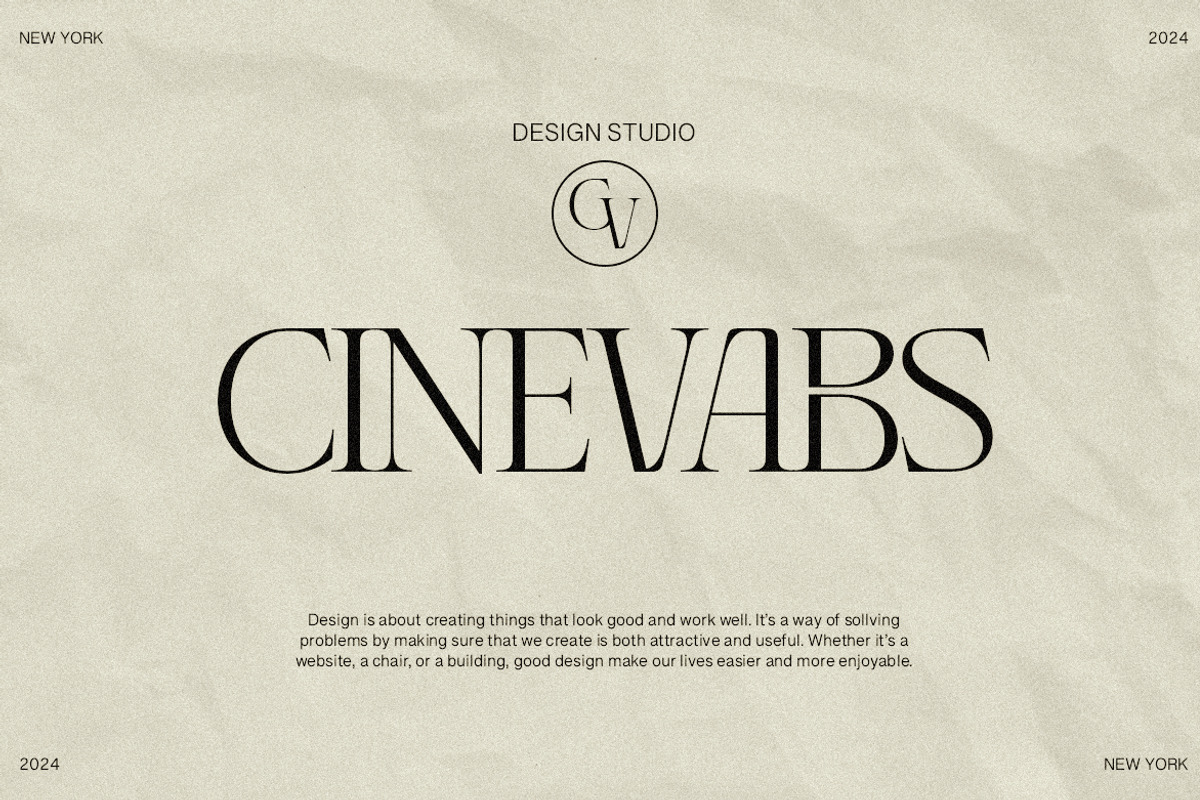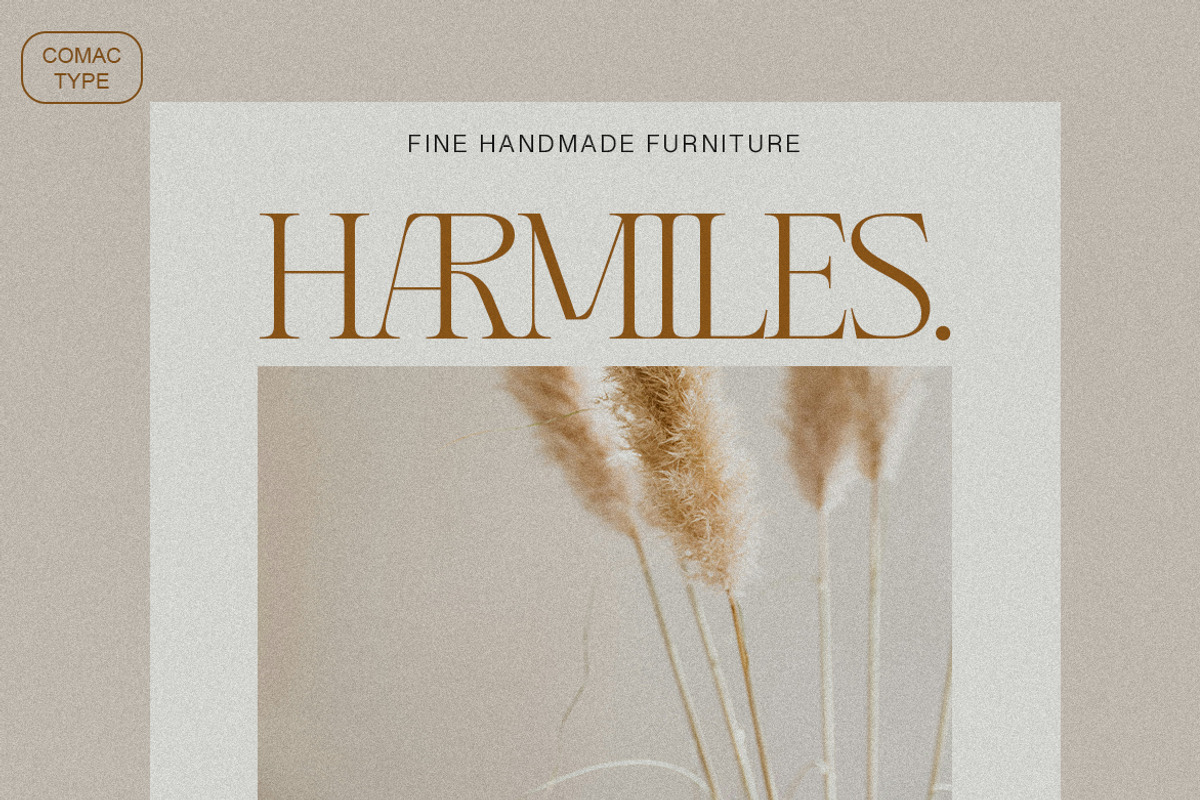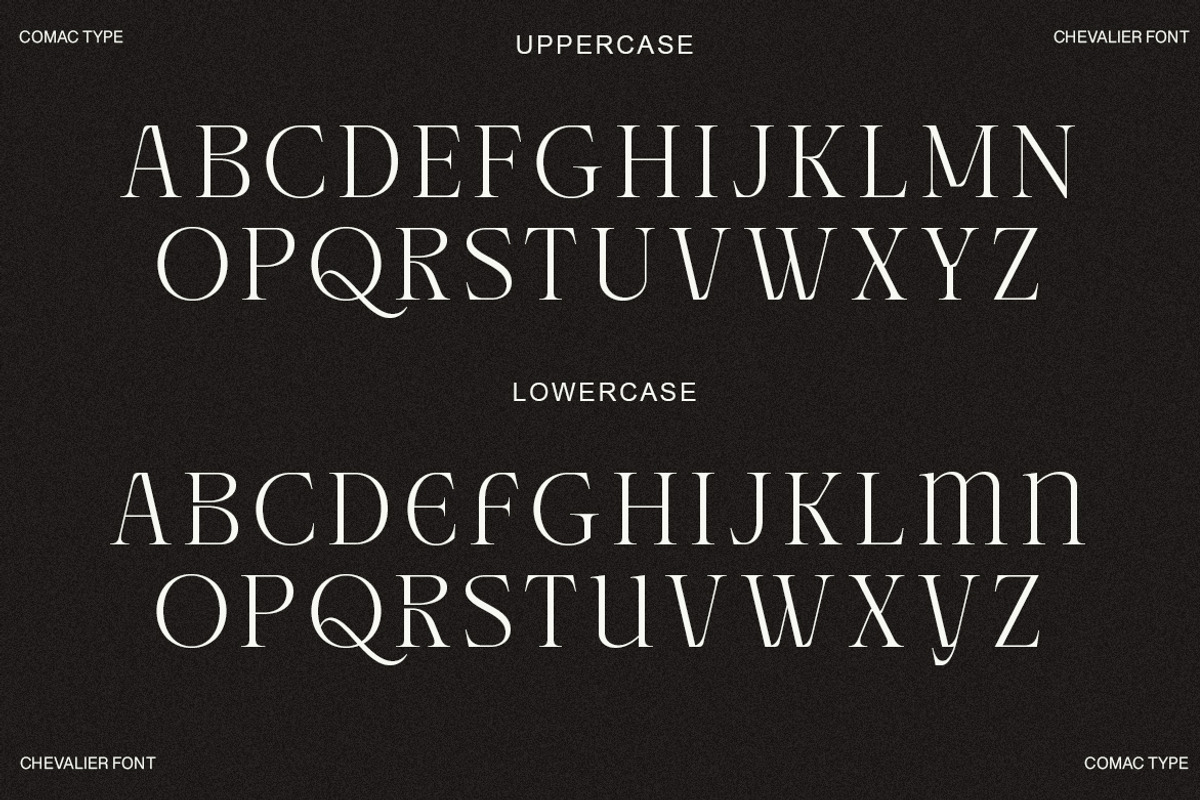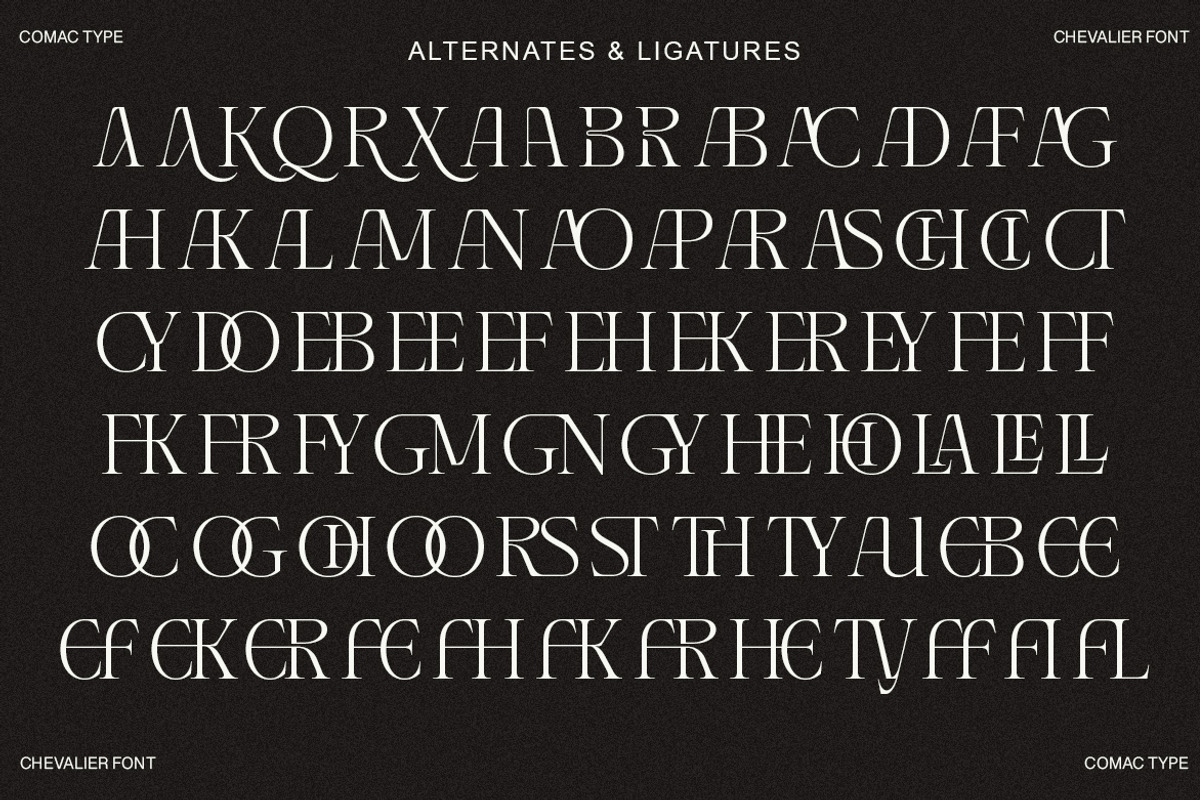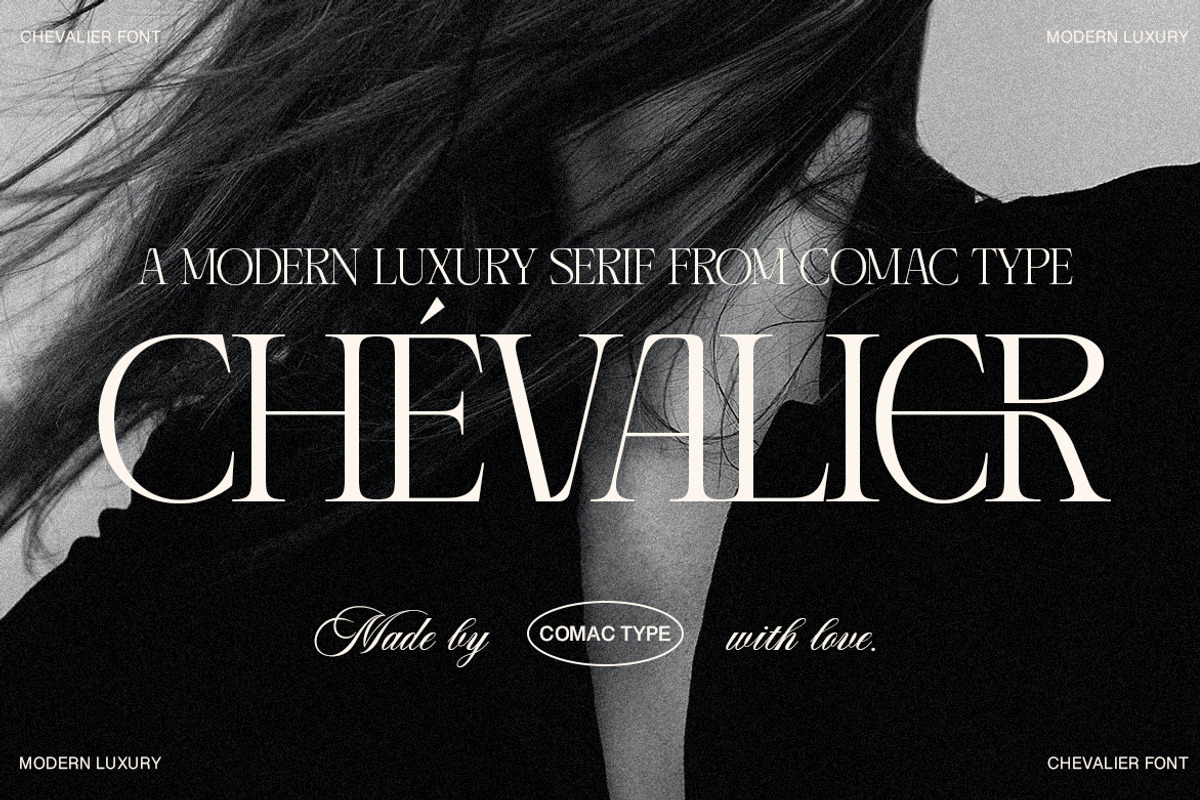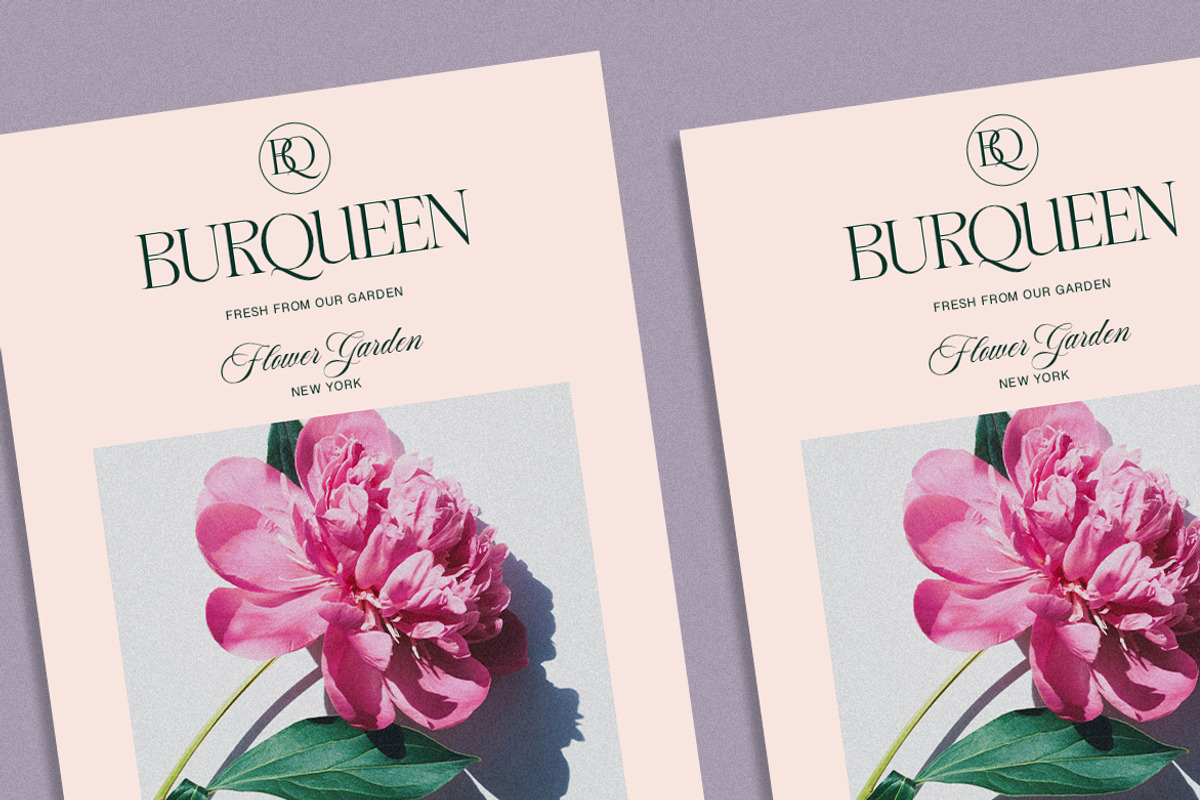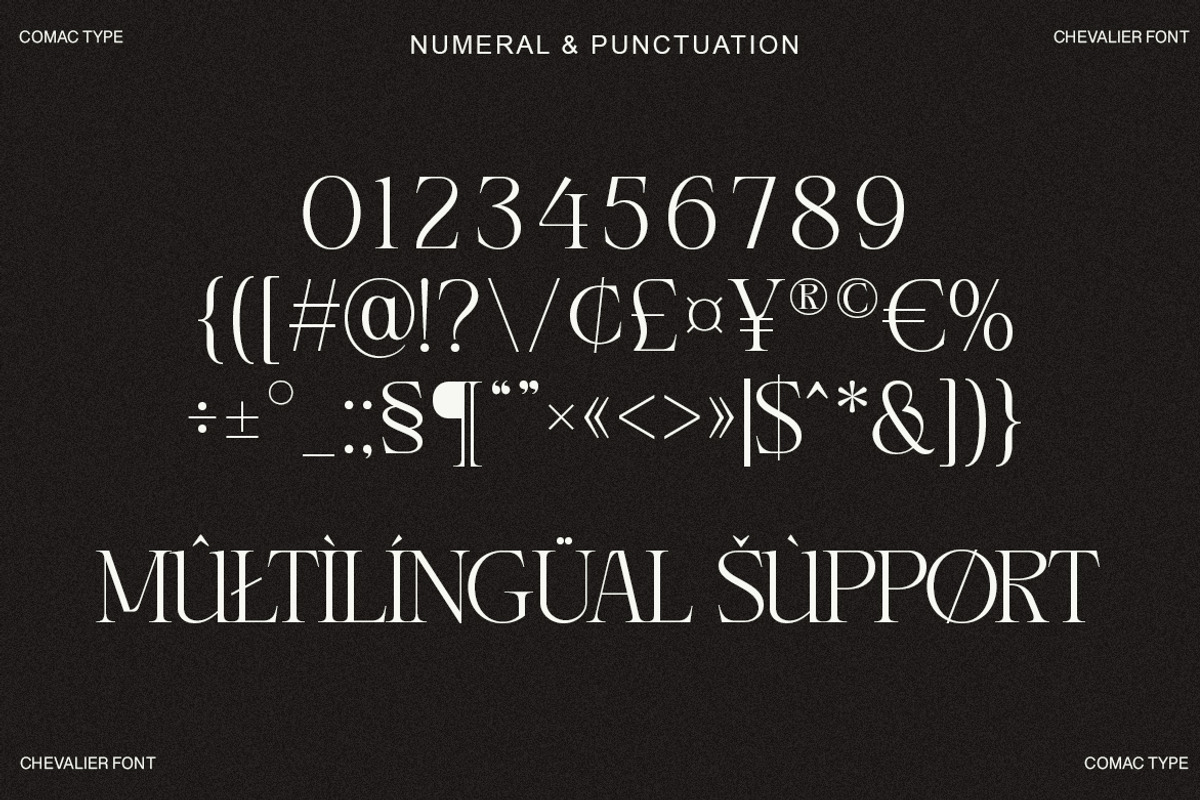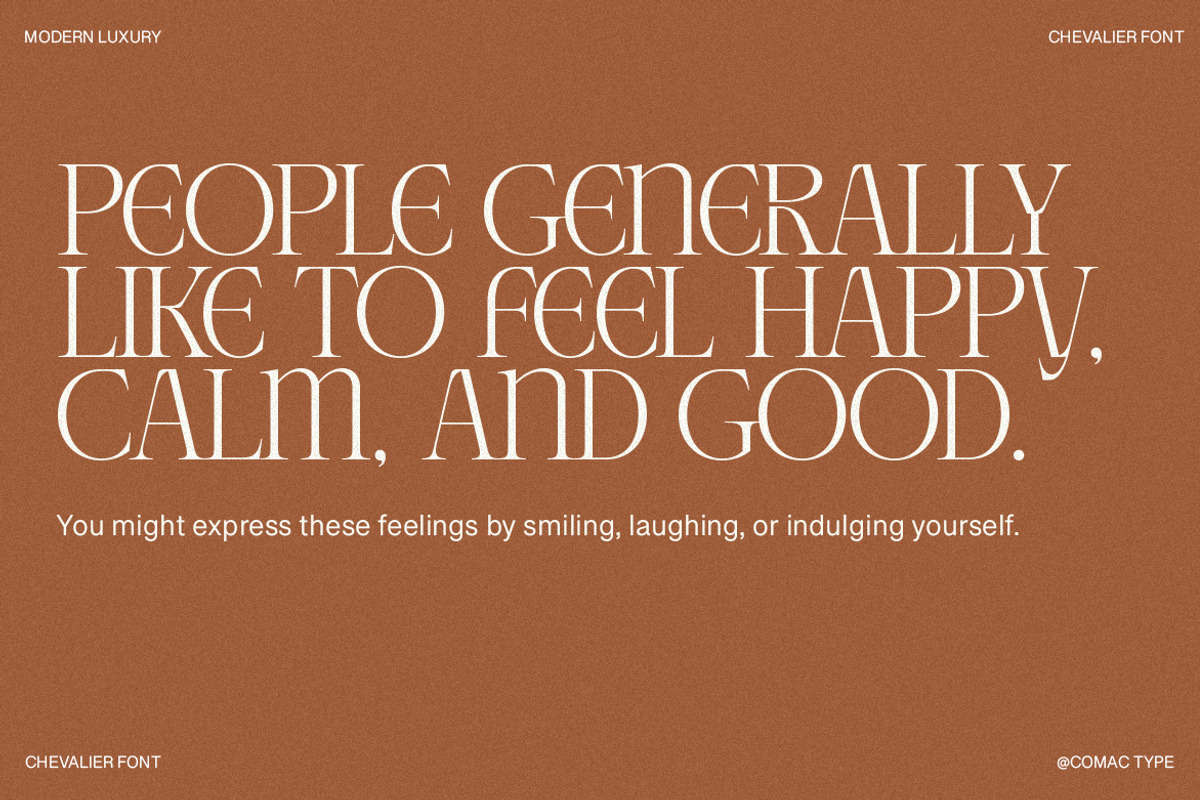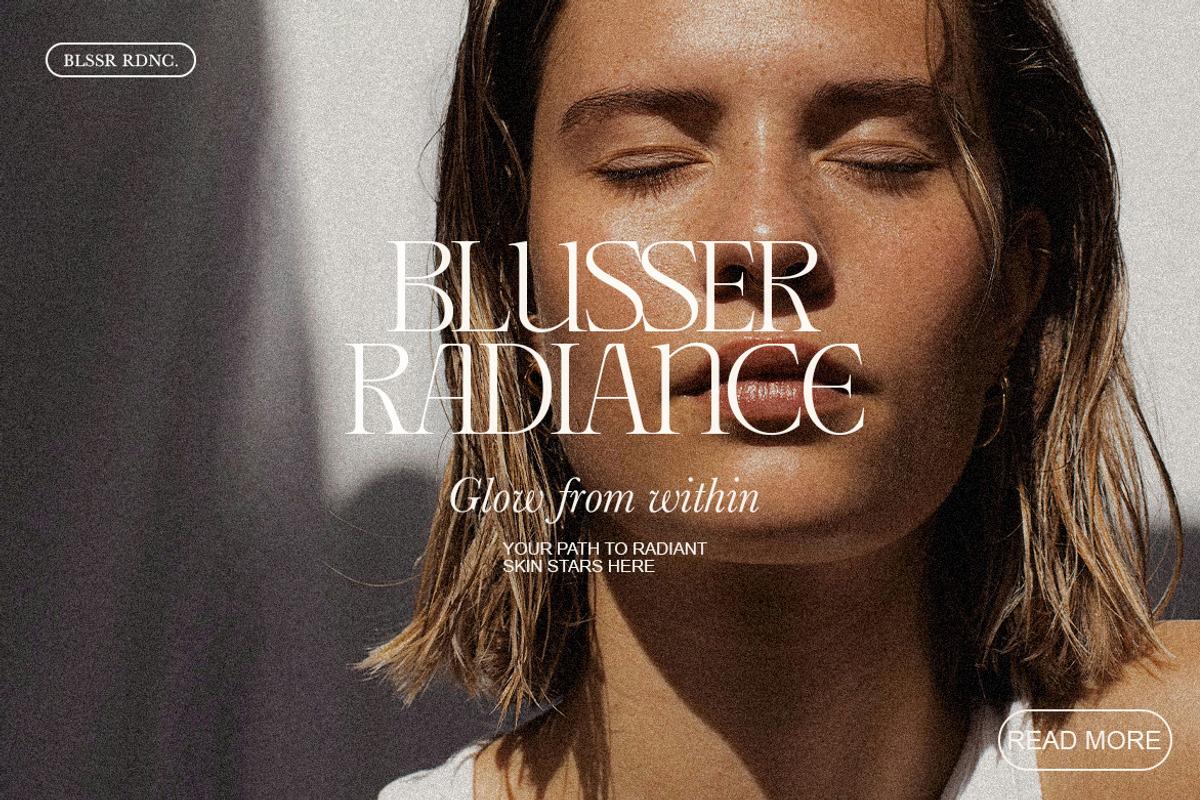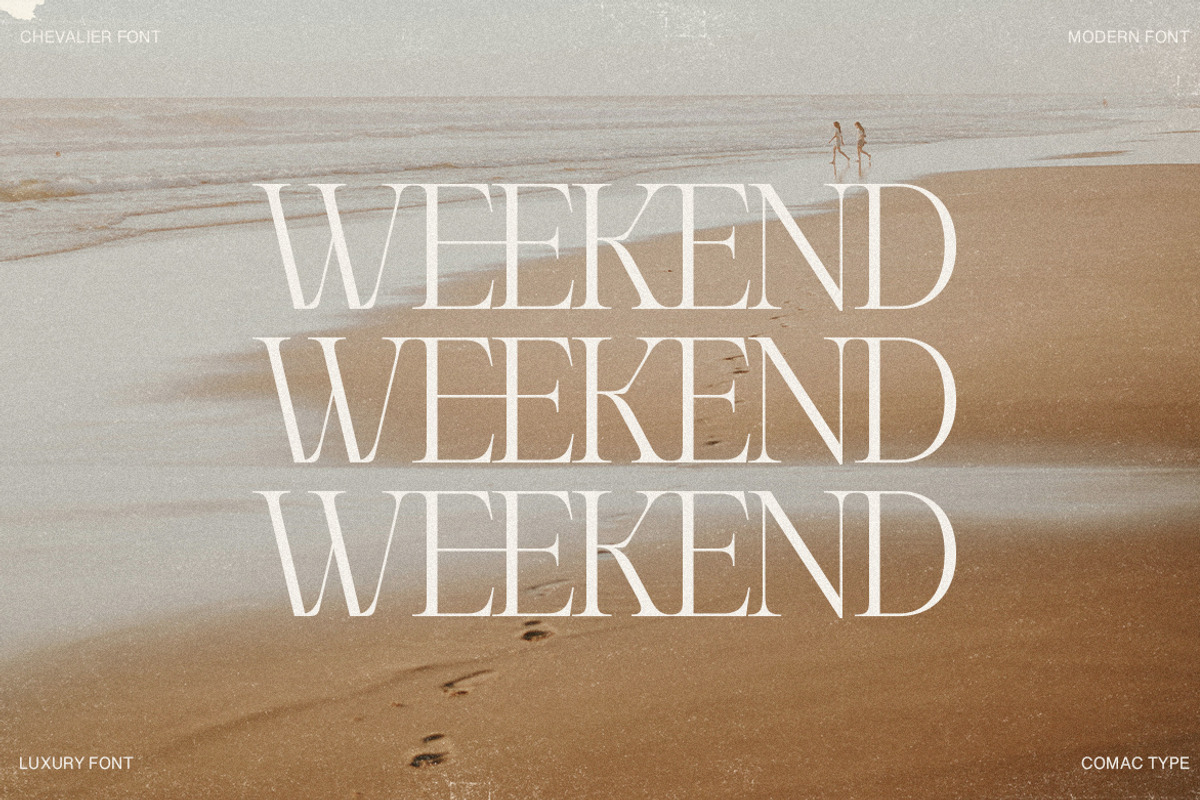
CHEVALIER Modern Luxury Typeface
CHEVALIER is multipurpose and unique display font, you can use it in modern and vintage design. This font will suitable for any project, like branding, print template, logo and etc. Chuten include uppercase and lowercase, ligature and alternate style, and also multilingual support.